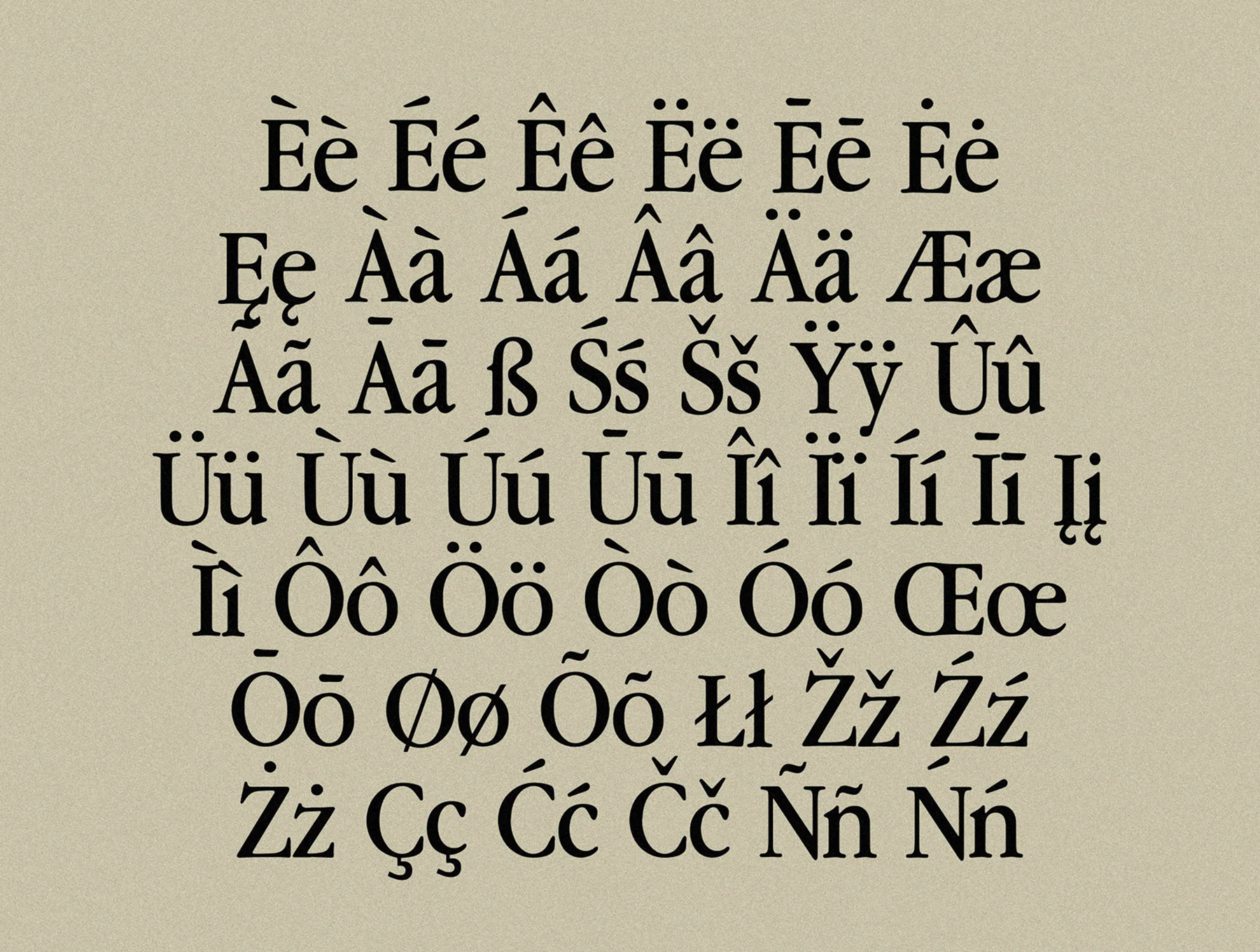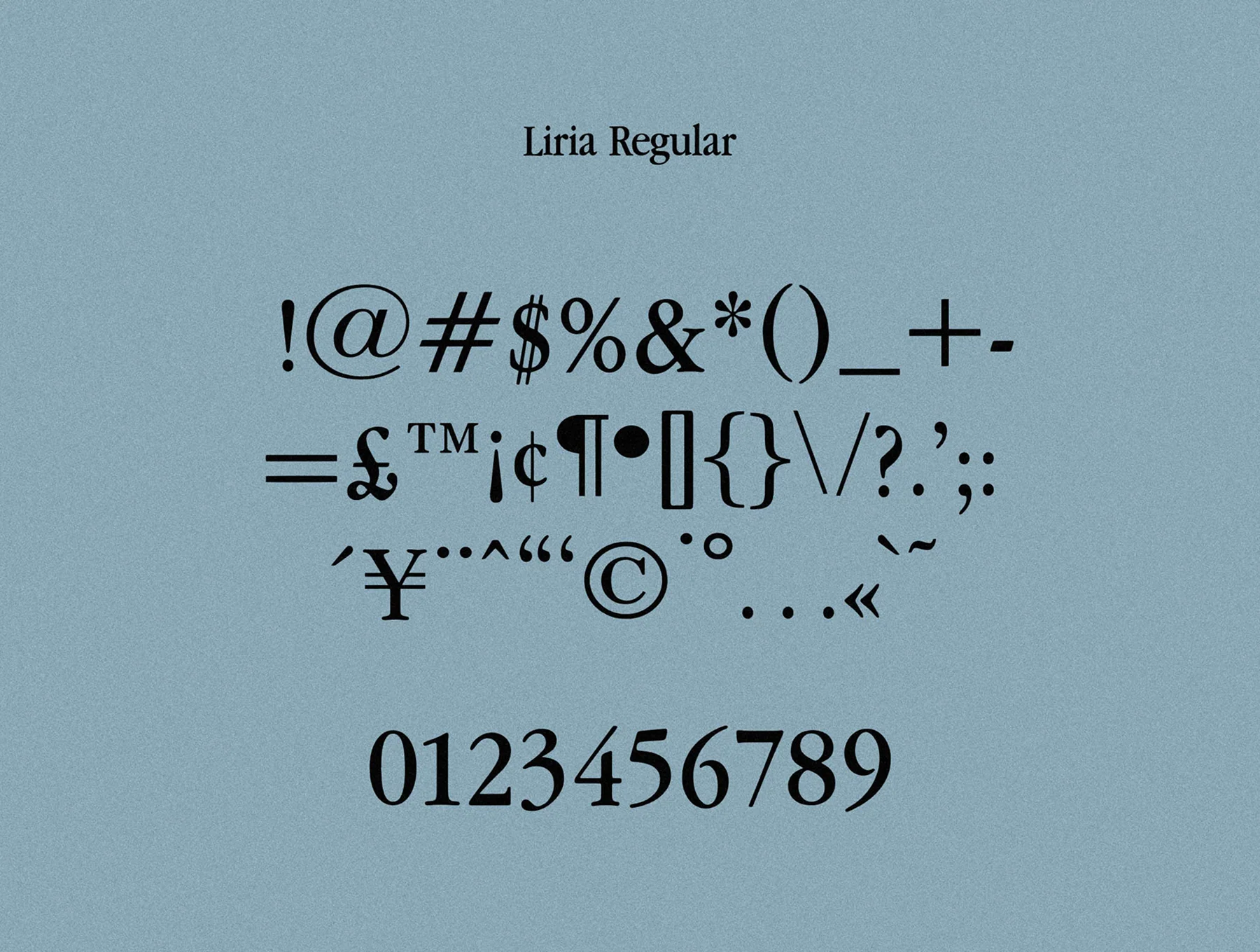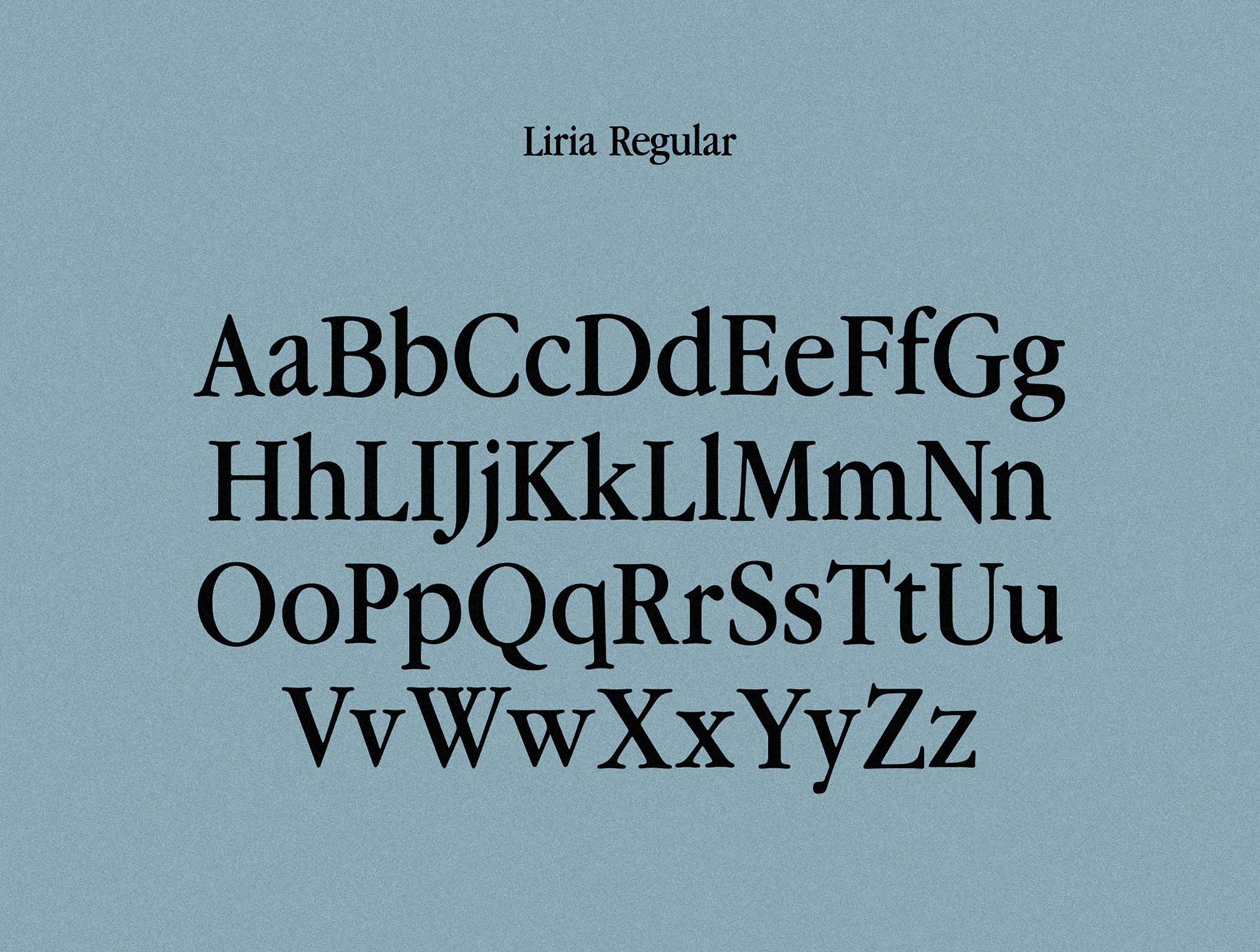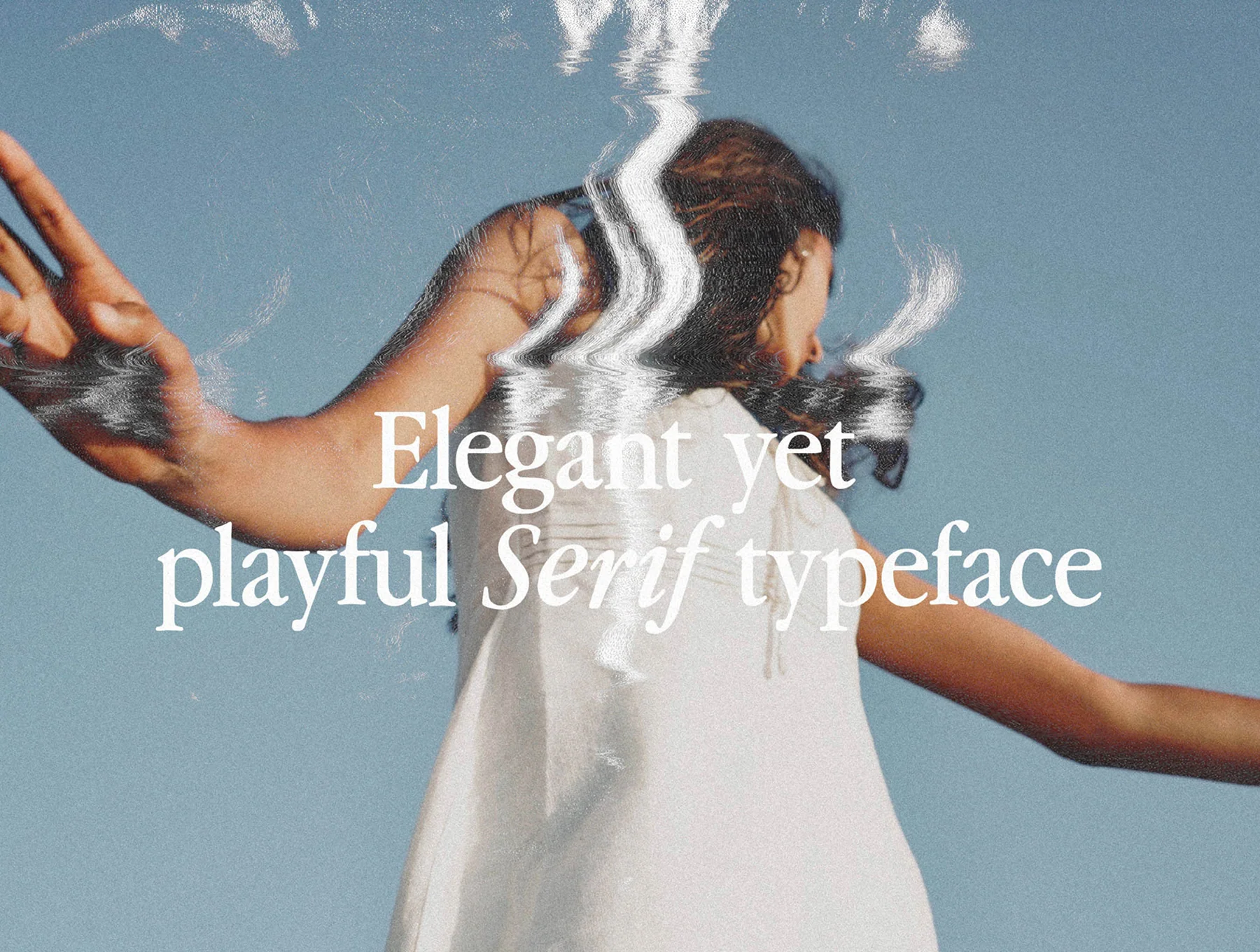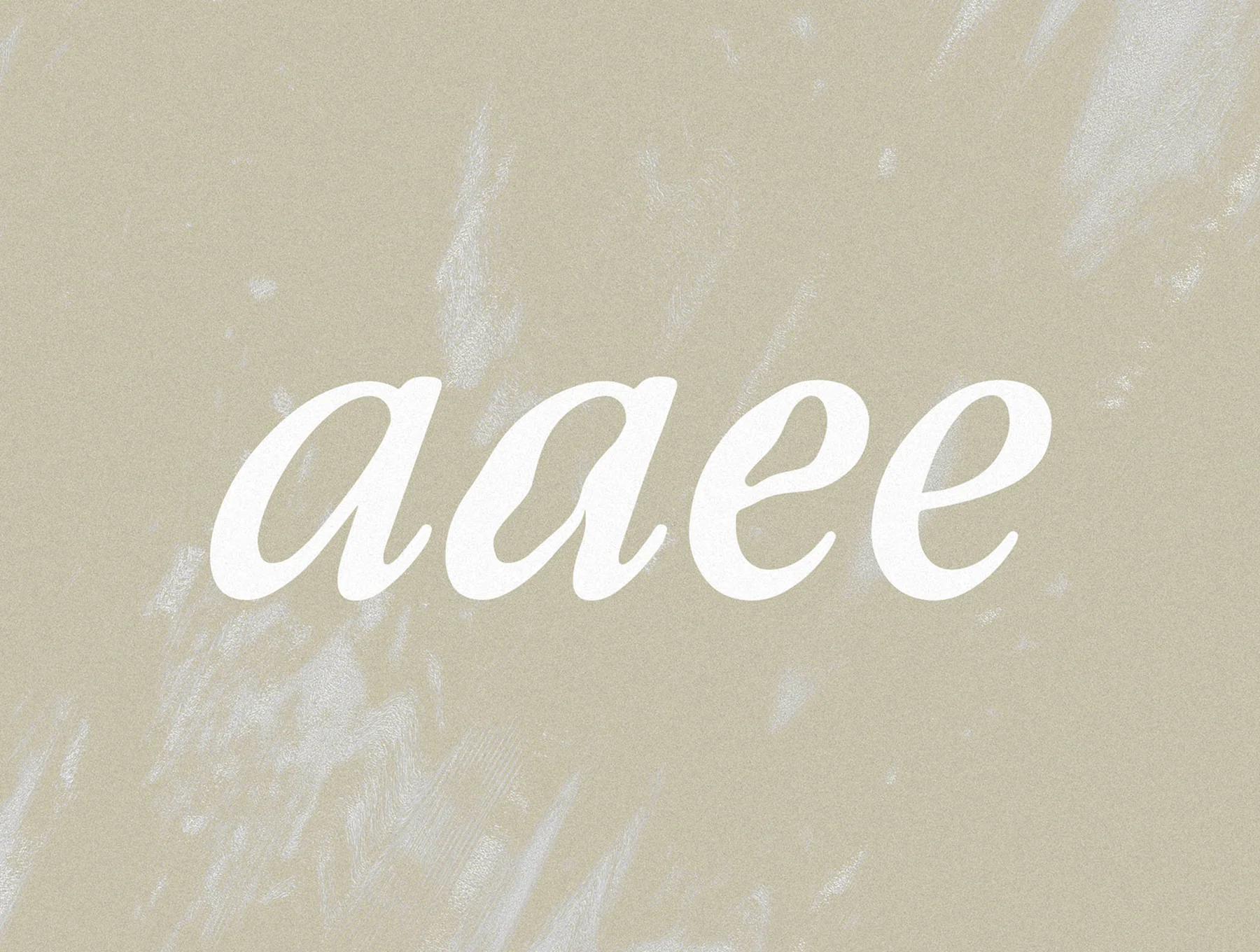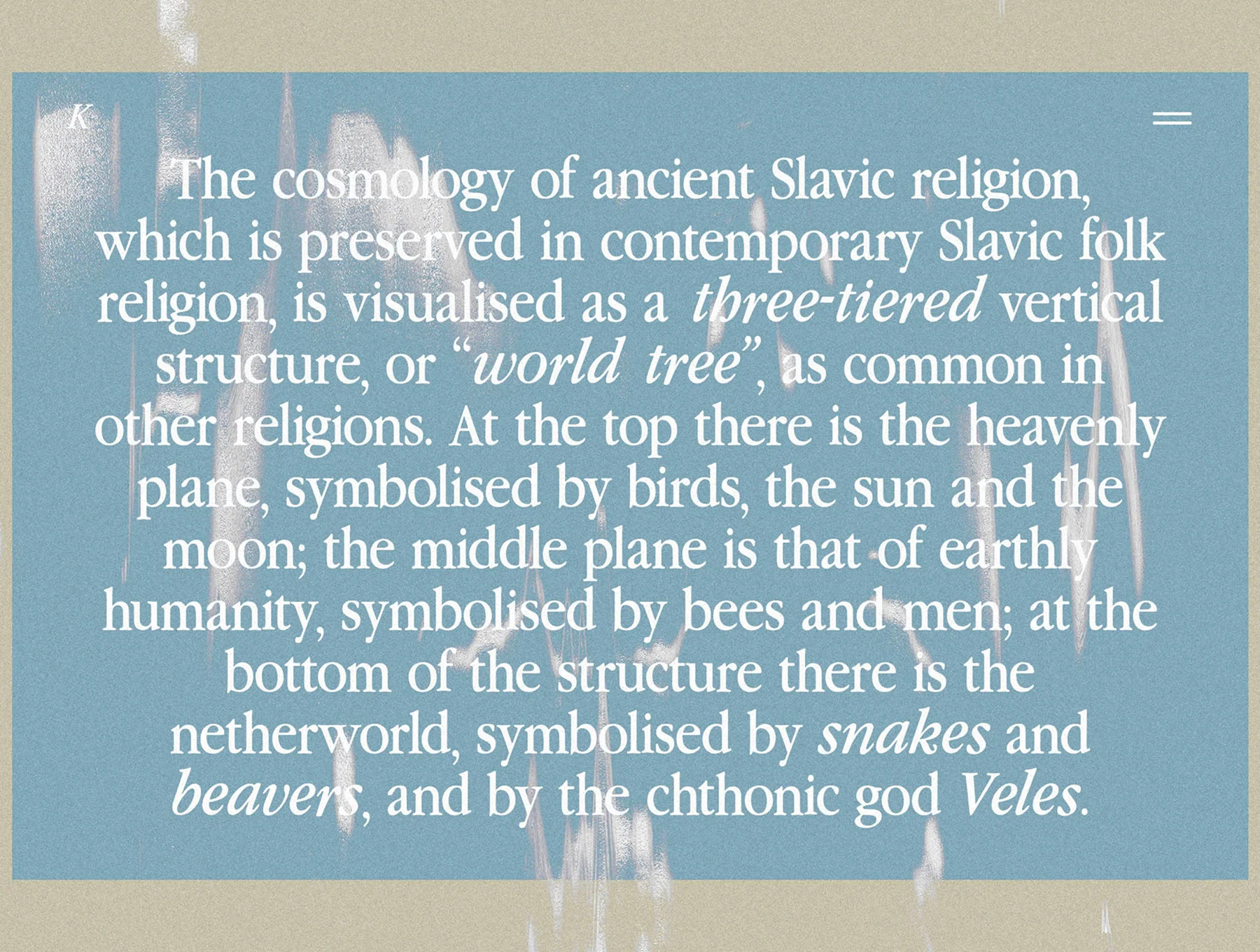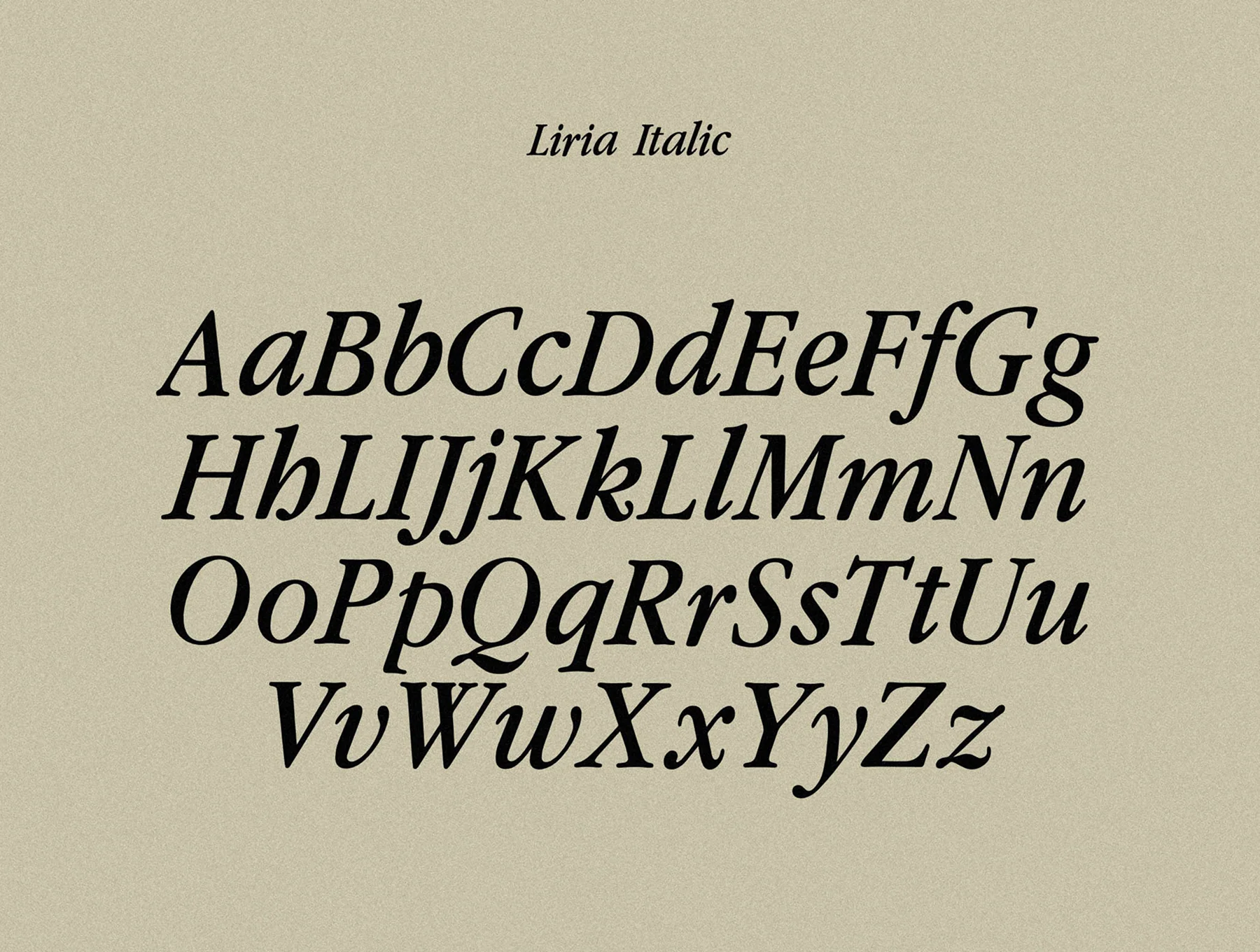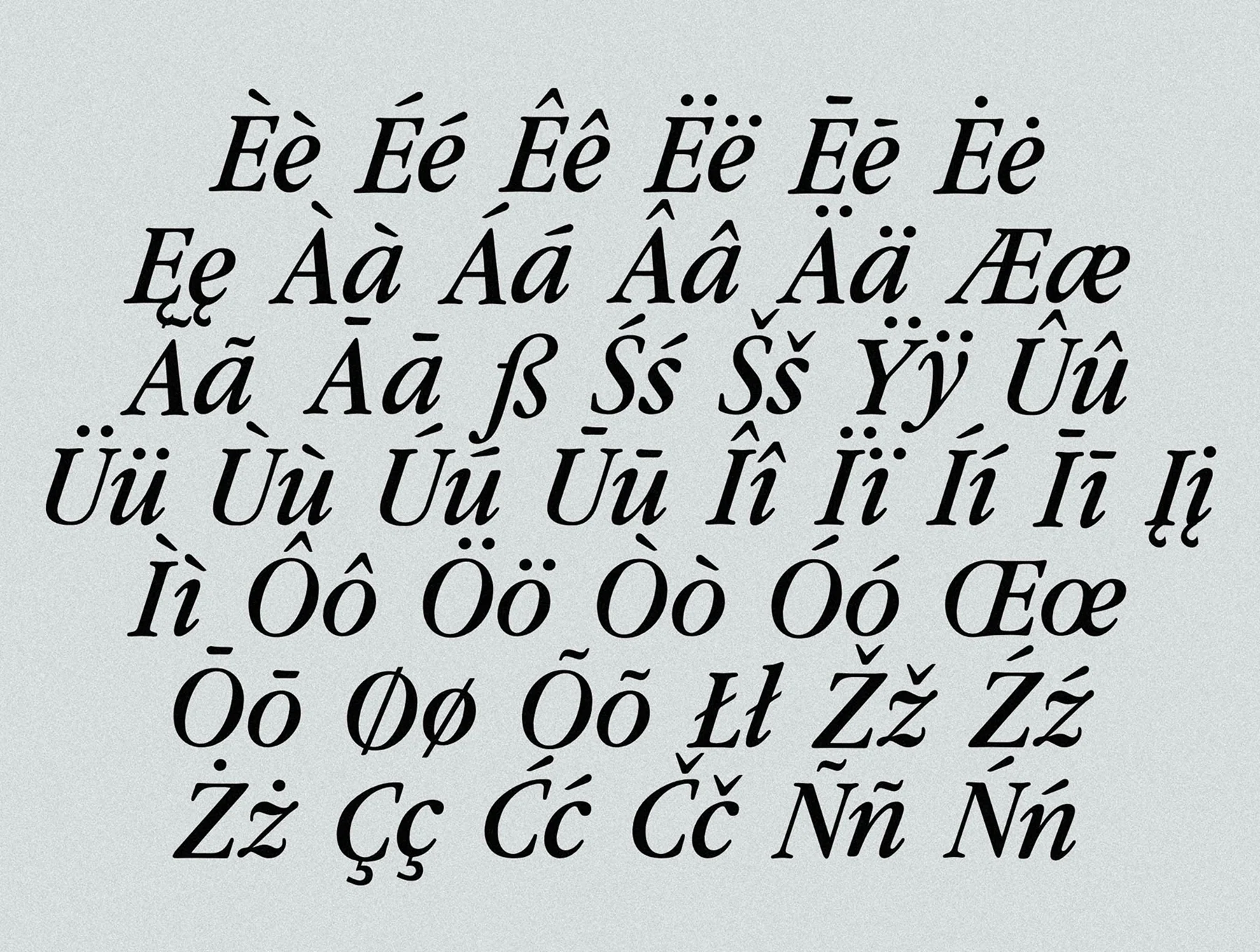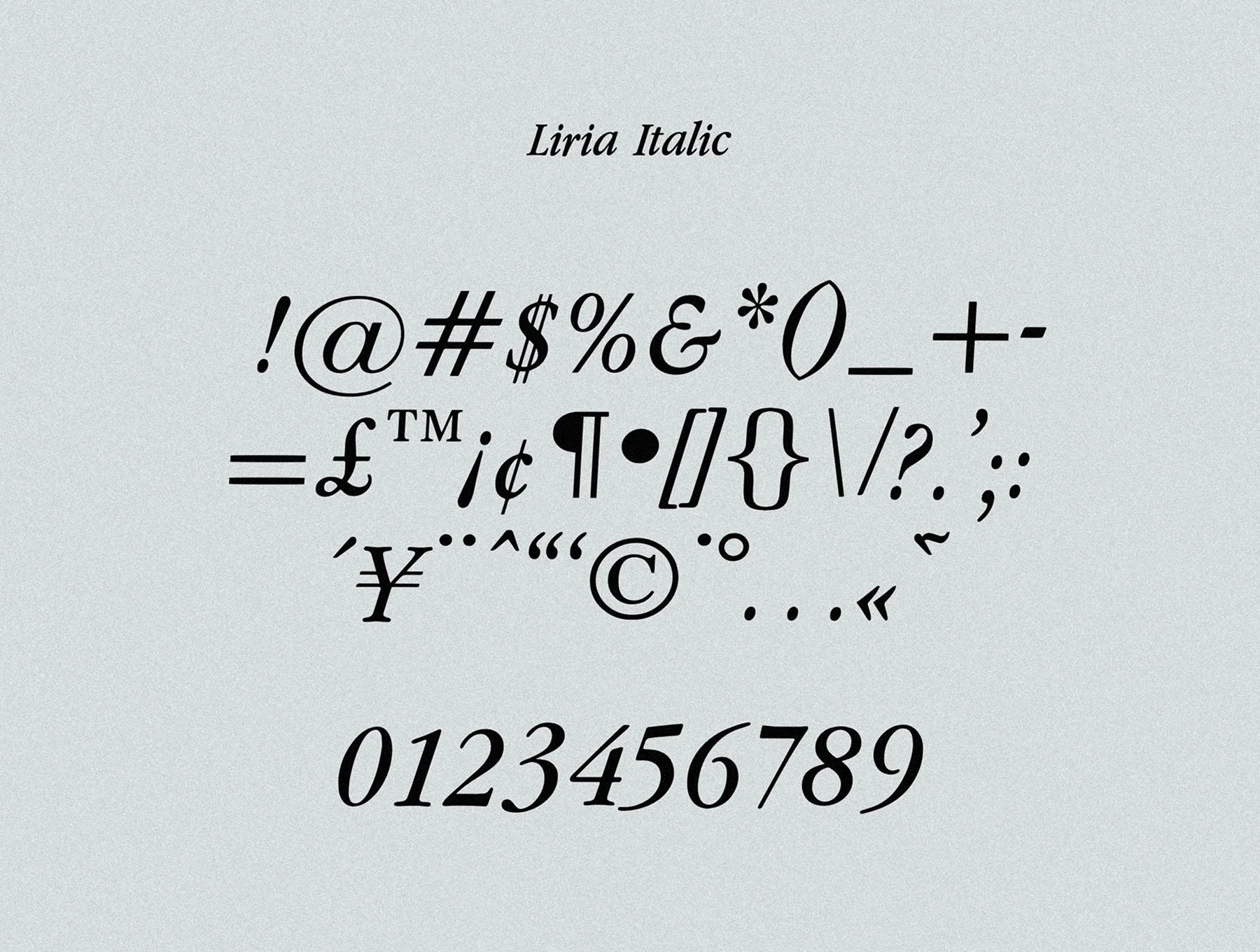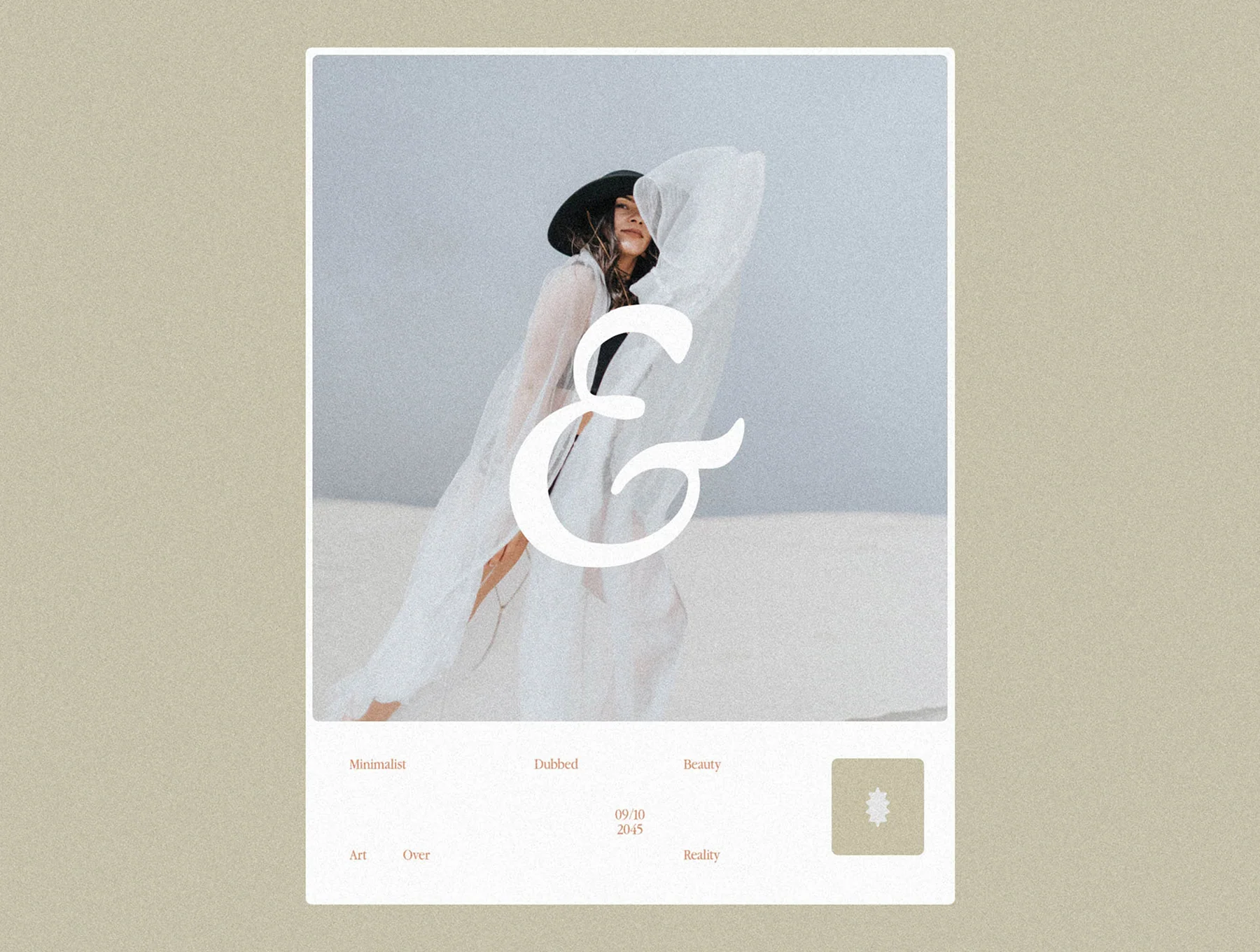
Liria Serif Typeface – Regular + Italic
Timeless serif with a gentle ’90s vibe, well-balanced and adaptable for varied uses
Regular and italic variants
Capital and small letterforms
Includes numerals and punctuation
Support for multilingual characters
Liria is an elegant serif font crafted for readability and personality. It suits headings, body text, and magazine-style layouts, while pairing Regular with Italic adds a subtle 90s-inspired feel.